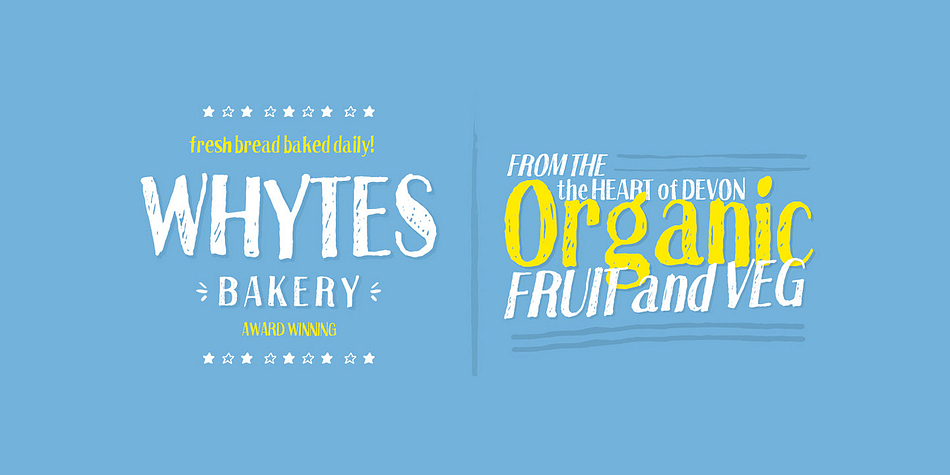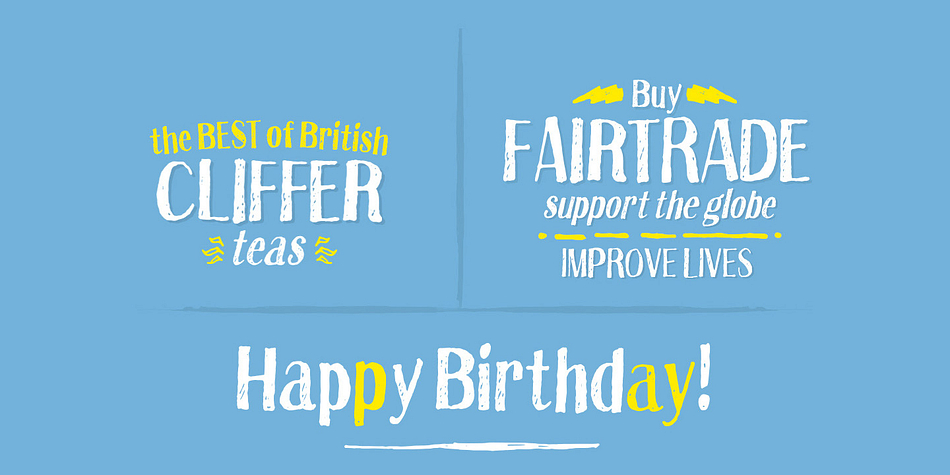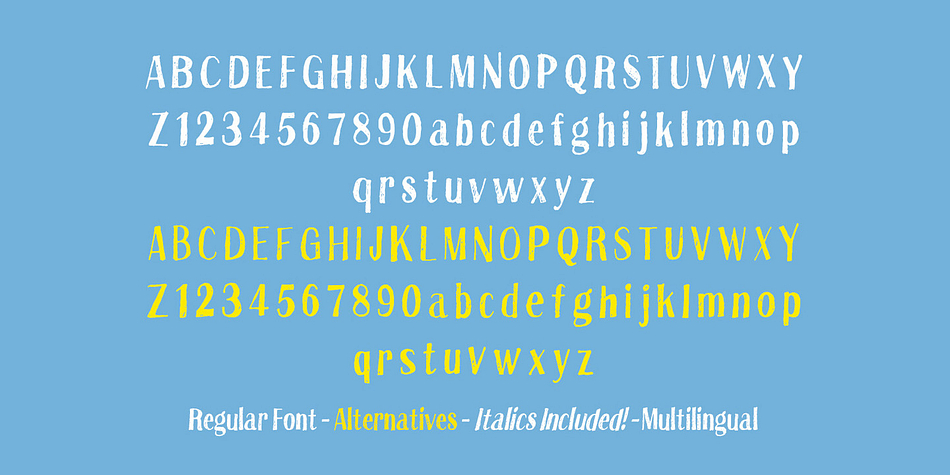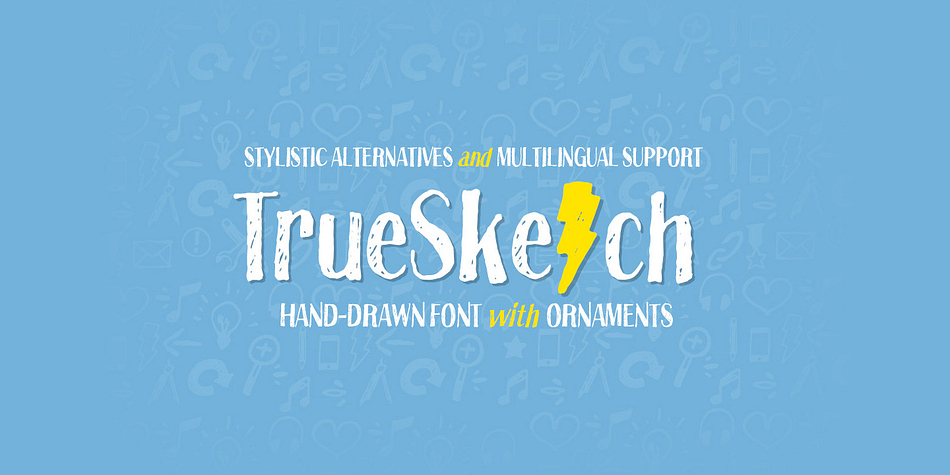
True Sketch is a dingbat and hand drawn font family. This typeface has three styles and was published by Tom Chalky.
TrueSketch is a fun, practical and versatile font that can be used in various digital projects. It is a regular font (+ Italic!) with stylistic alternatives for every letter to help you emphasize the authentic handwritten style. Every glyph was hand drawn, scanned, and converted to vector without any digital touch-ups!
The bonus to this family is True Sketch Ornaments, 85 hand drawn design elements that perfectly complement this complete font family.